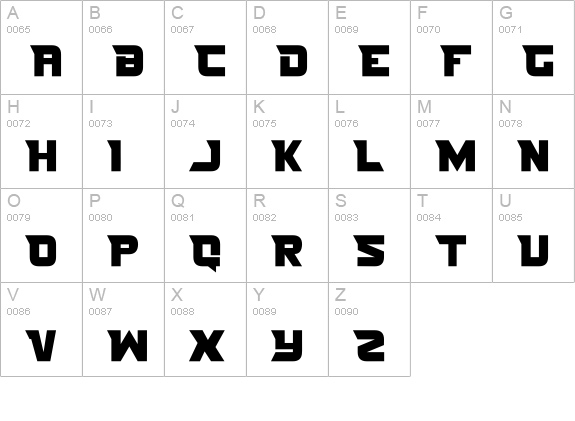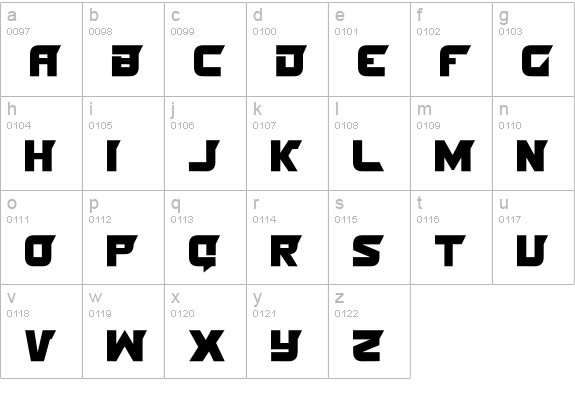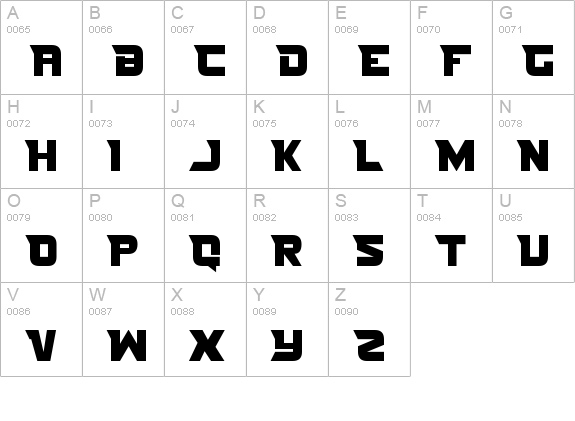
Nife Fite Font Details
Nife Fite is a modern and stylish font that exudes elegance and sophistication. With its sleek lines and unique design, this font is perfect for adding a touch of class to any project. Whether you are designing a logo, creating a poster, or crafting a website, Nife Fite will make your text stand out. The best part? Nife Fite is completely free to use! You can download this stunning font at FontsMarket.com and start incorporating it into your designs today. Don't miss out on this fantastic opportunity to elevate your work with the beauty and versatility of Nife Fite.